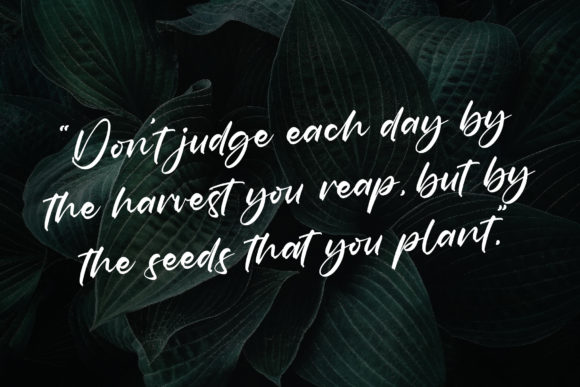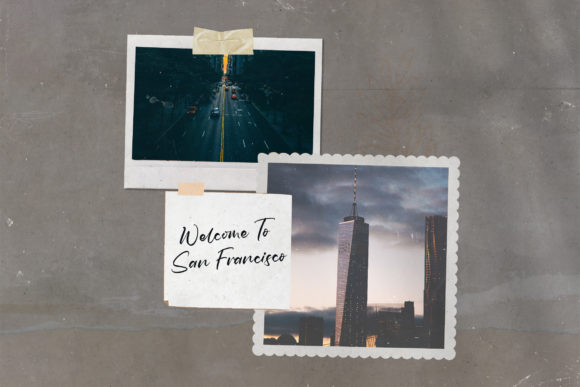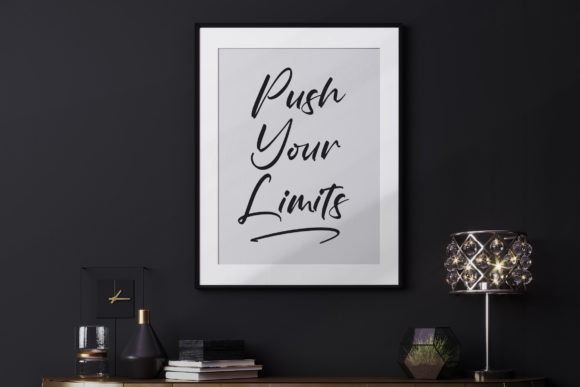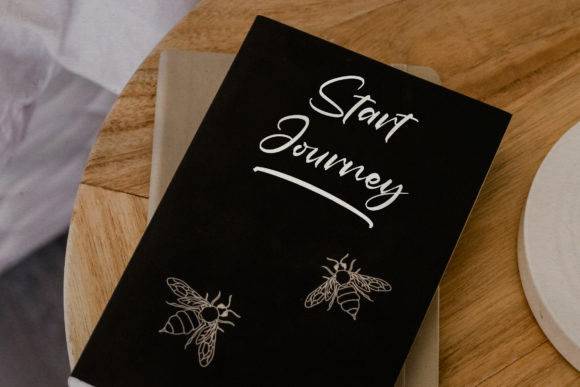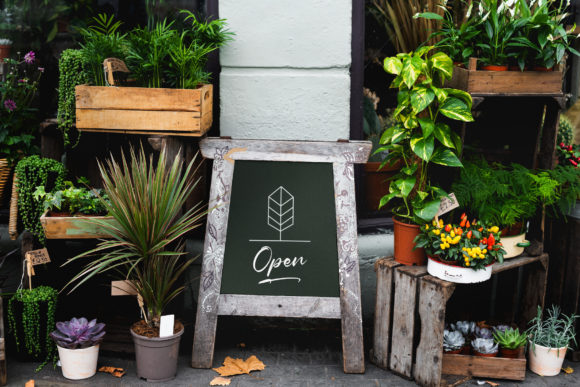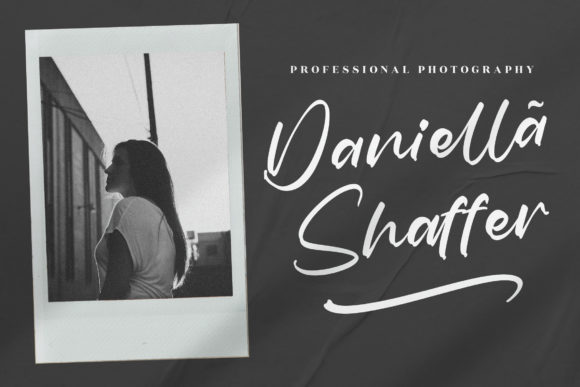
The Magic of Falatisco Font: Elevating Your Designs with Elegance
I’ll never forget the moment I stumbled upon the perfect font for a luxury branding project. I was working late, sipping on cold coffee, and scrolling through font after font, trying to find that one magical typeface that would bring my design to life. And then, I found it – Falatisco. This stunning calligraphy font has been a game-changer for my design workflow, and I’m excited to share its beauty and versatility with you.
Here’s what makes Falatisco a standout in my font library:
- ✨ Beautiful calligraphy: Each character dances along the baseline, adding a touch of elegance to any design.
- ✅ PUA encoded: Easy access to amazing glyphs and ligatures, making it a breeze to create stunning text.
- ✅ Luxury feel: Perfect for high-end branding, packaging, or any project that requires a sophisticated touch.
Now, I do want to mention a couple of minor quirks:
- 🤔 Glyph management: With so many glyphs and ligatures available, it can take some time to get familiar with the font’s capabilities.
- ⚠️ Legibility at small sizes: While Falatisco is stunning at larger sizes, it may lose legibility when used at very small font sizes.
The Story Behind Falatisco: A Designer Inspiration
While the true origins of Falatisco remain a mystery, it’s clear that this font was crafted with love and attention to detail. Imagine a designer, sipping coffee in a charming café, hand-painting each character with precision and care. The result is a font that exudes luxury, sophistication, and a touch of playfulness.
| Font Name | Falatisco Font |
| Author | Glorytype Studio |
| What makes Falatisco font special? | Falatisco’s unique calligraphy style, PUA encoding, and extensive glyph library make it an excellent choice for designers seeking a luxurious and elegant font. |
| Is Falatisco difficult to use? | While Falatisco offers a wide range of features, it’s relatively easy to use, especially for designers familiar with OpenType fonts. |
With Falatisco font, you’ll be able to elevate your designs and add a touch of luxury to any project. Its unique calligraphy style, extensive glyph library, and ease of use make it an excellent addition to any designer’s font library.